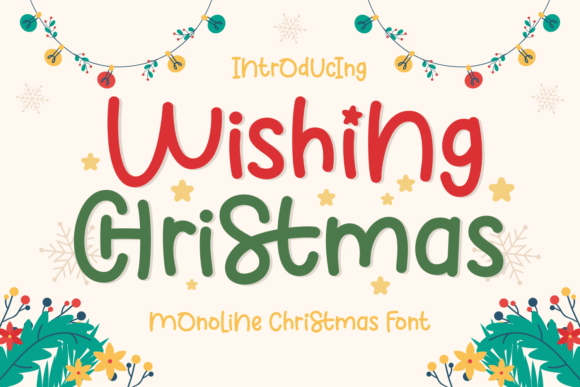
Welcome to the world of Wishing Christmas, the script font that captures the whimsical spirit of Christmas. Its monoline design gives it an airy, delicate touch, perfect for adding a touch of elegance to your holiday projects.
With Wishing Christmas, you can create stunning typography that will make your designs stand out. Use it for heartfelt Christmas cards, inviting posters announcing your holiday events, or eye-catching flyers that will spark excitement for your festive sales. The possibilities are endless.
The beauty of Wishing Christmas lies in its versatility. It looks effortlessly charming on quotes and social media posts, adding a touch of holiday cheer to your online presence. Embrace the festive vibes and create heartwarming invitations that reflect the warmth of Christmas gatherings. Whether it's a cozy family dinner or a grand office party, Wishing Christmas will set the perfect tone.
Unleash your creativity with Wishing Christmas and let your imagination soar. Design posters that transport your audience to a winter wonderland, where snowflakes dance and Christmas magic fills the air. Create flyers that beckon customers to your festive sales, promising an experience that's as enchanting as a winter dream.
With its PUA encoding, Wishing Christmas makes it easy for you to access all the glyphs, ensuring that you have the freedom to express yourself fully. Explore the myriad possibilities and discover the joy of creating typography that captures the essence of Christmas.